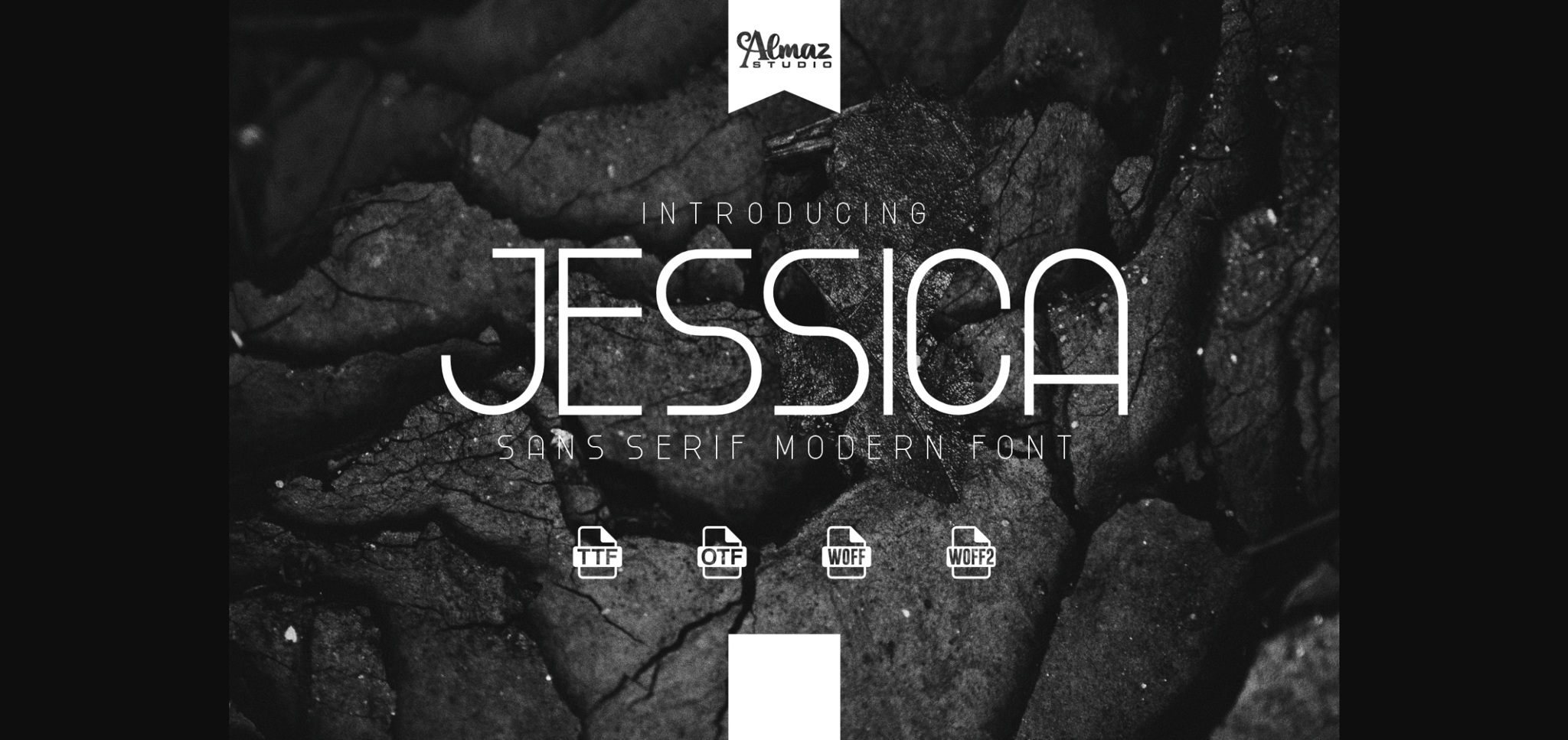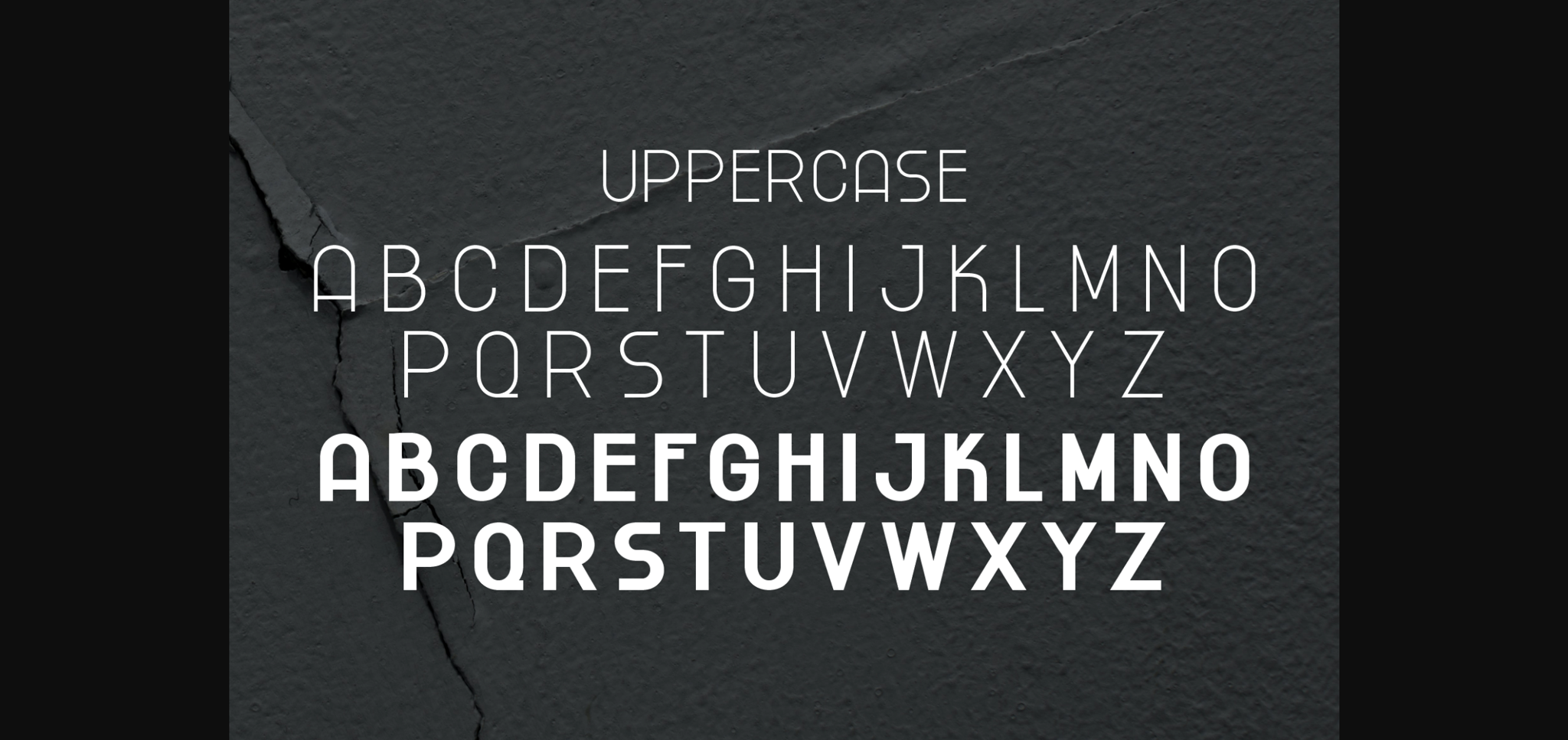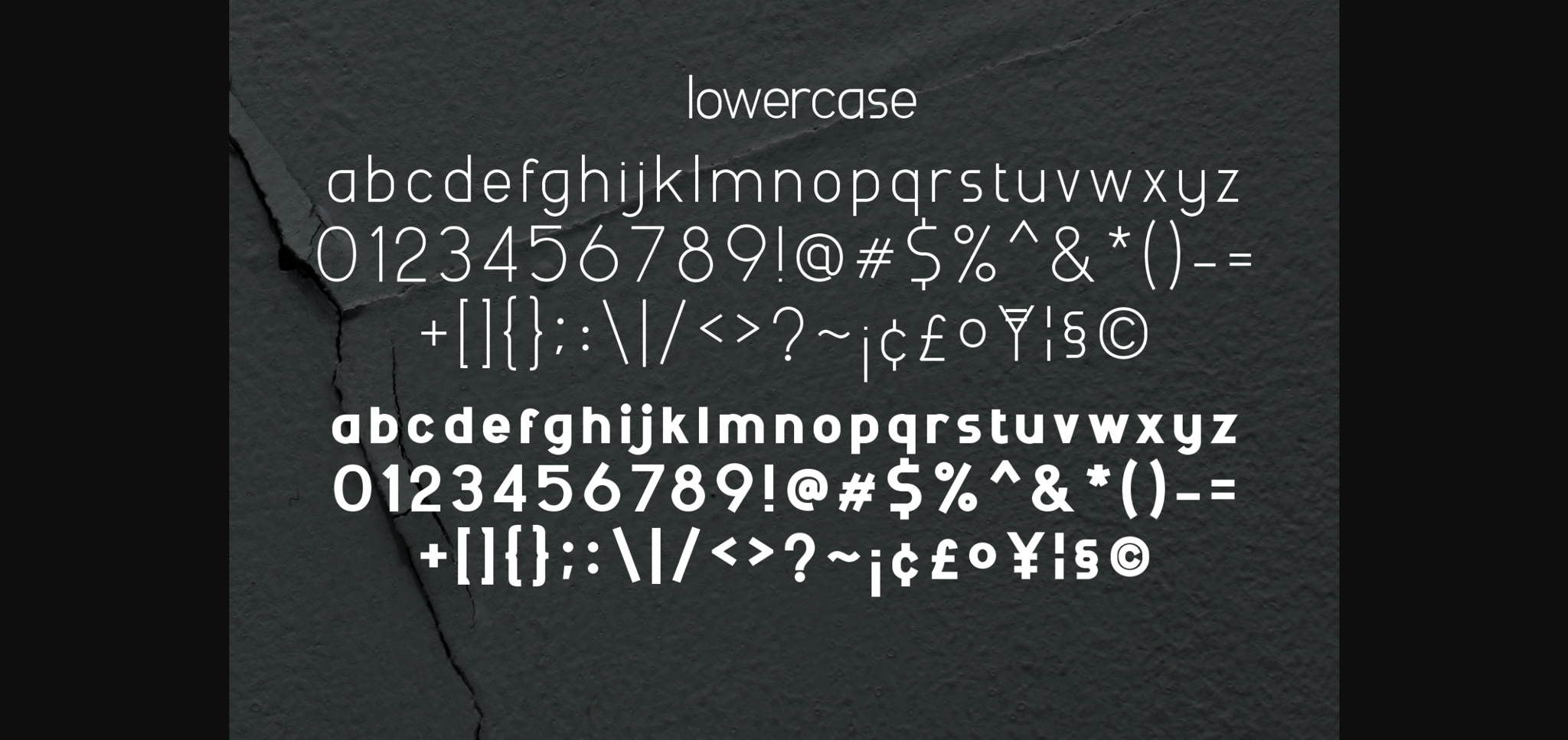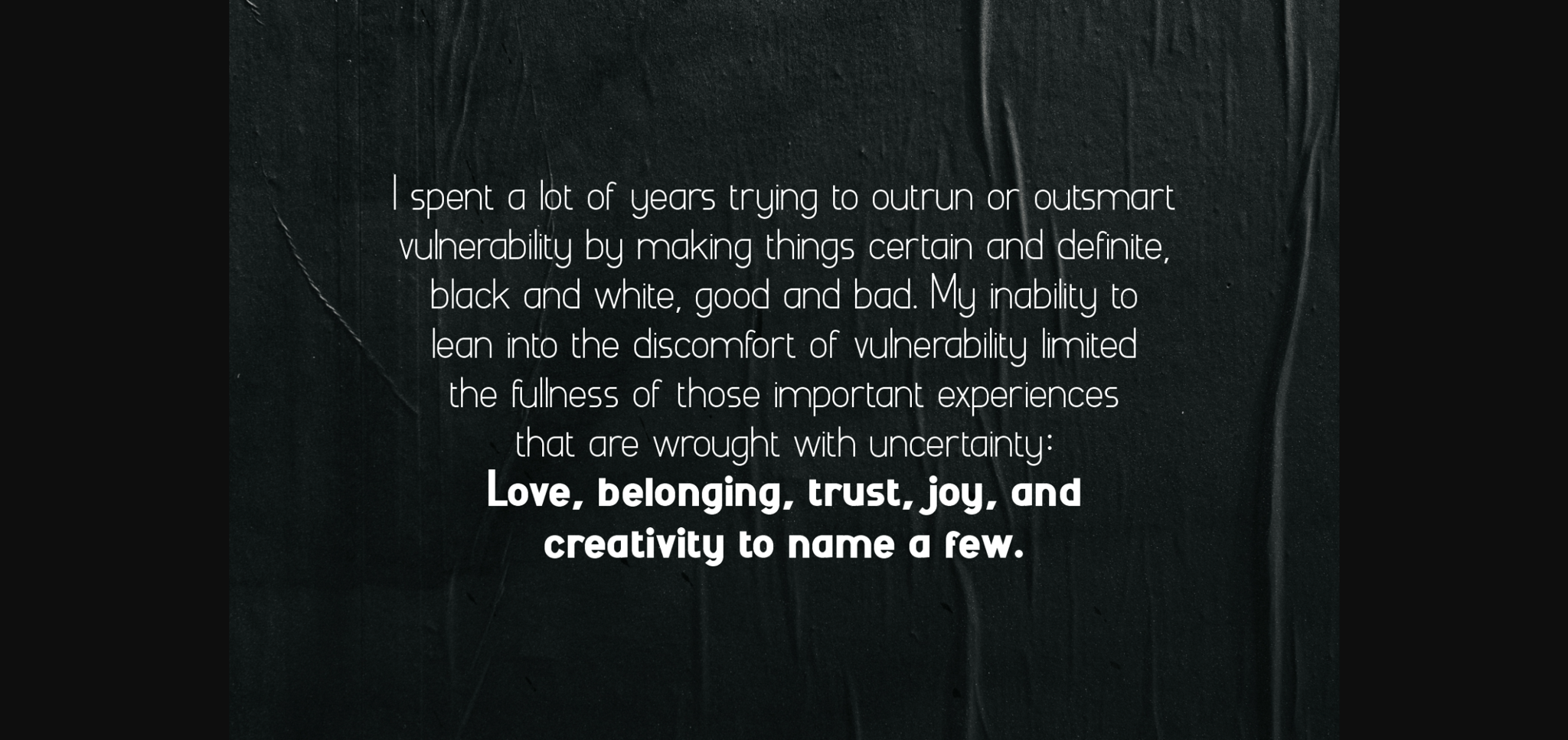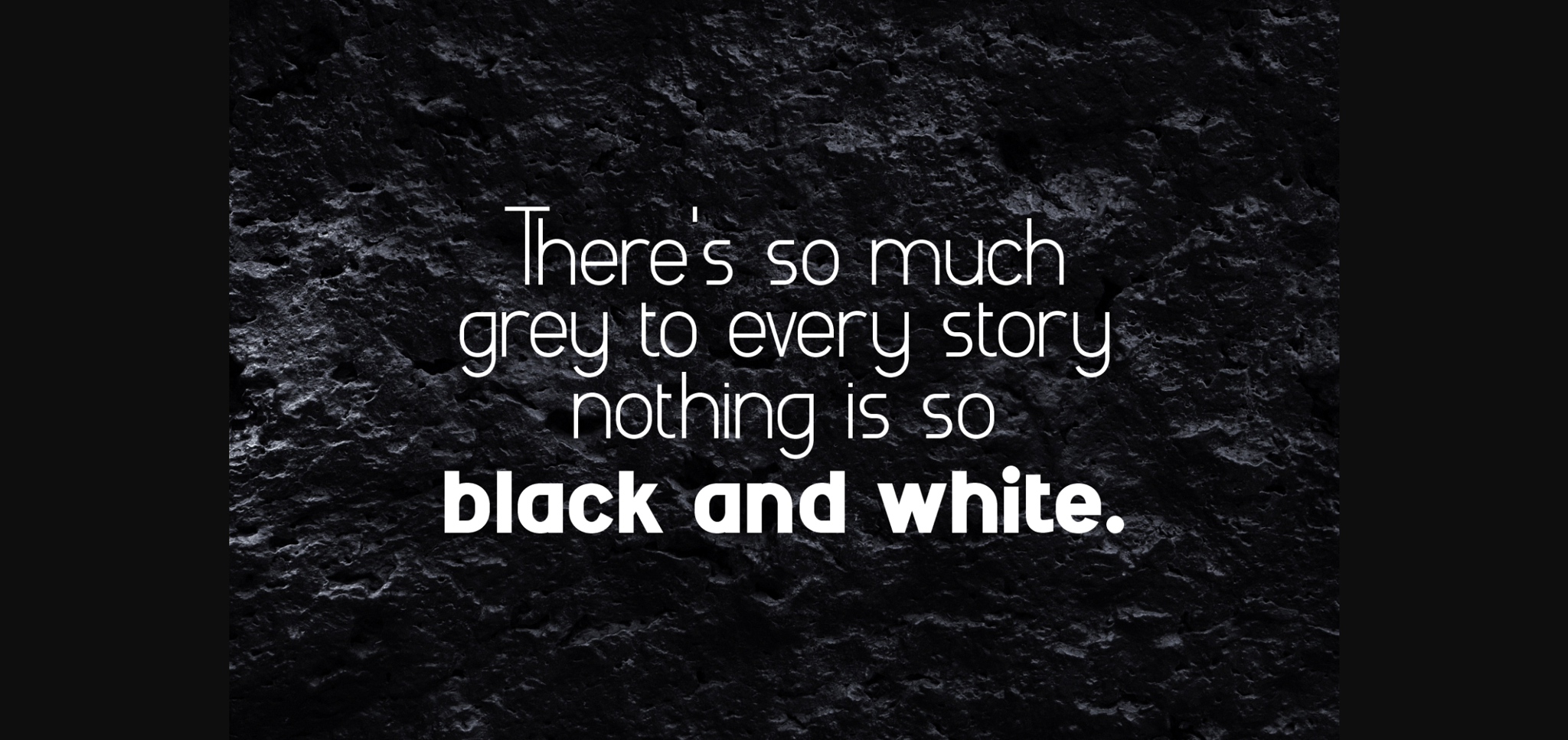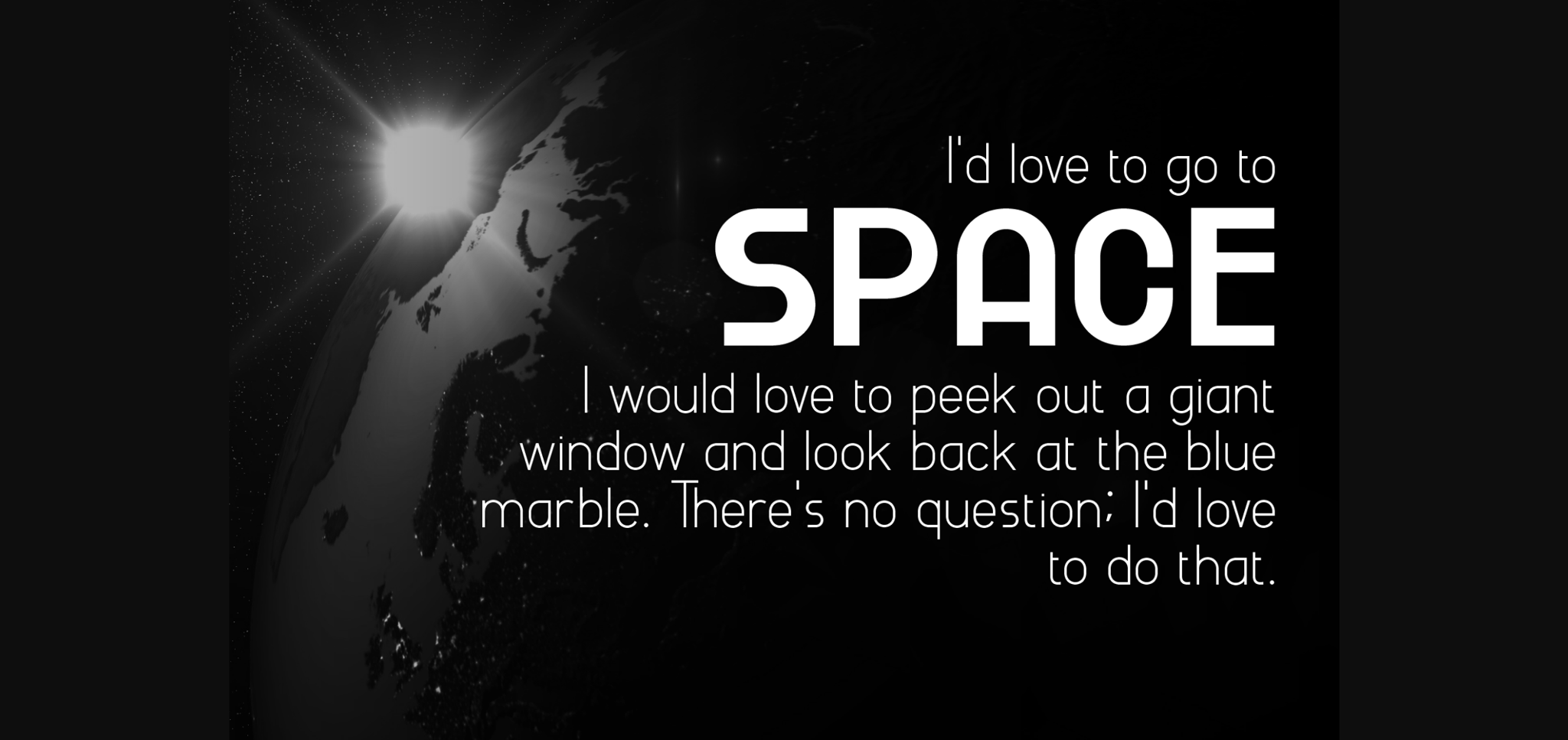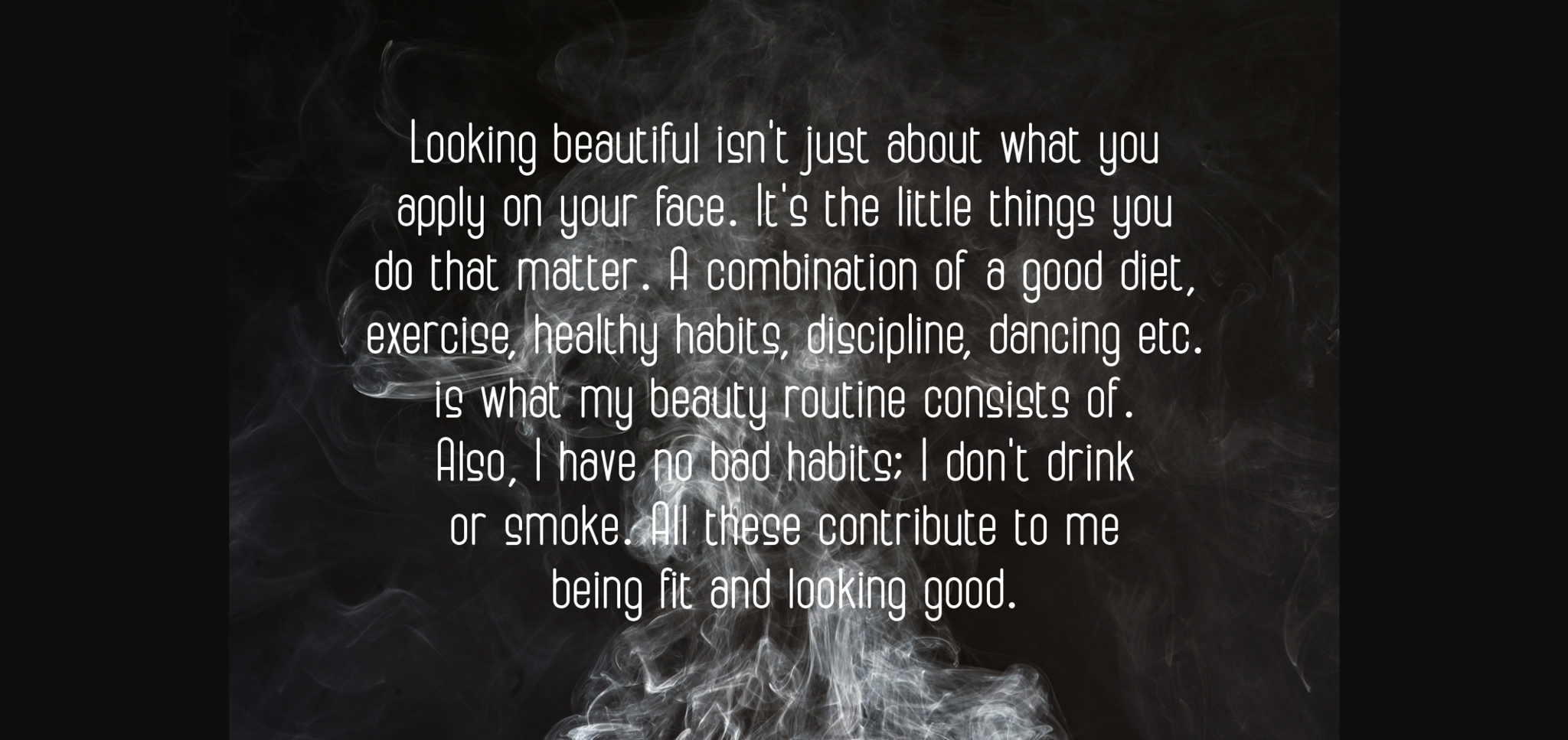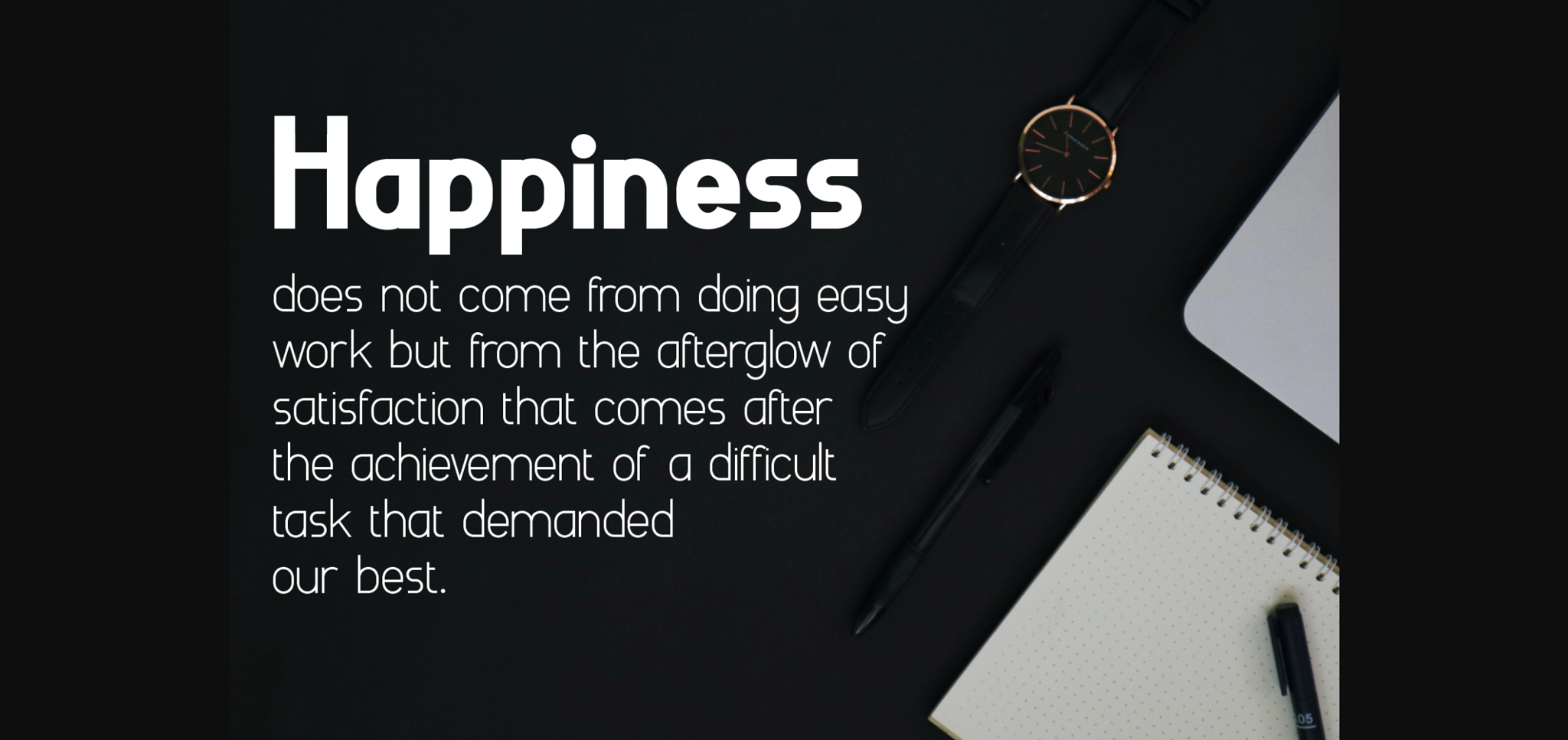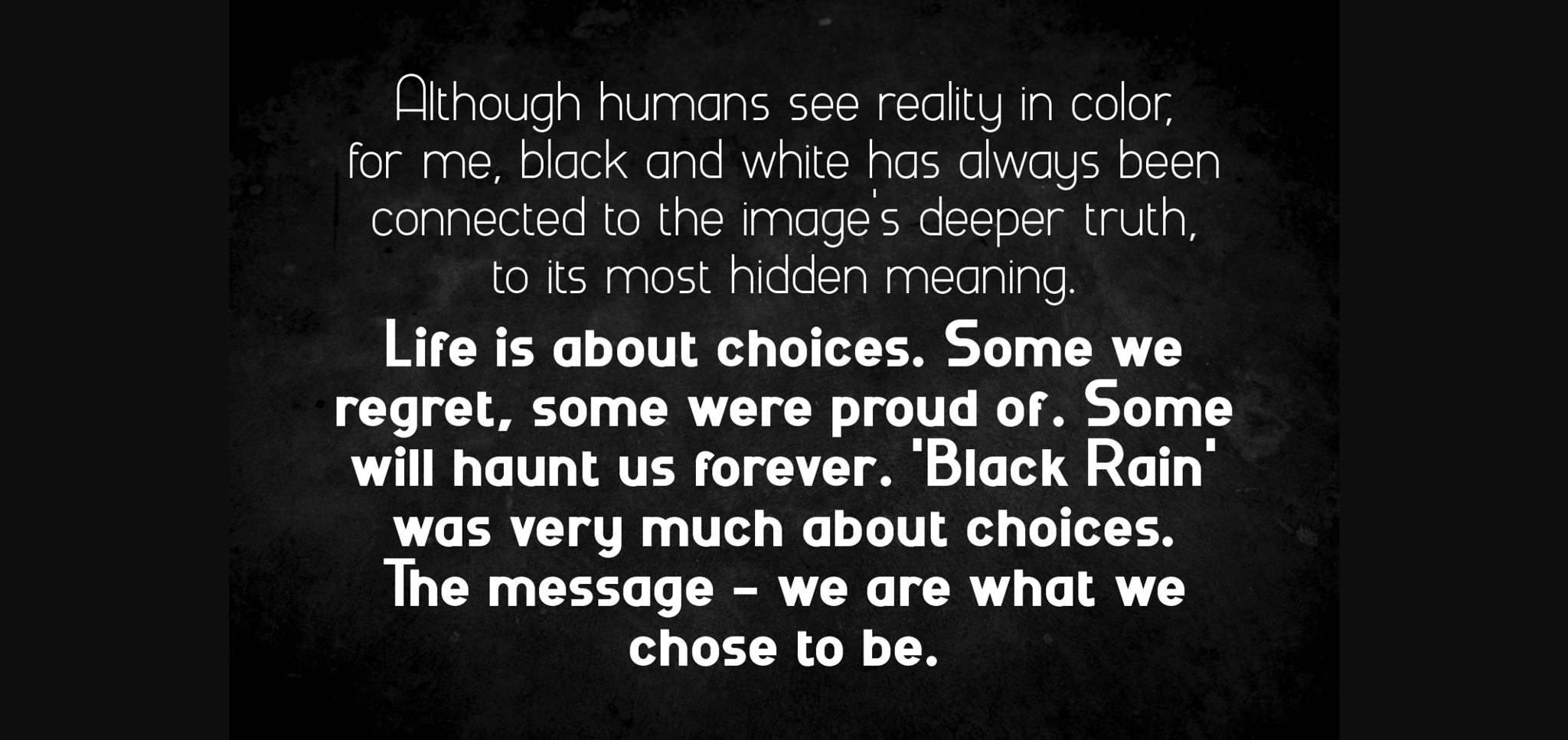
HomeSans Serif FontsJessica Font Sans Serif Fonts Jessica Font FacebookXPinterestWhatsApp 1 of 11 ... Jessica Font Poster 2... Jessica Font Poster 3... Jessica Font Poster 4... Jessica Font Poster 5... Jessica Font Poster 6... Jessica Font Poster 7... Jessica Font Poster 8... Jessica Font Poster 9... Jessica Font Poster 10... Jessica Font Poster 11... About Jessica Font Jessica is a simple and narrow lettered sans serif font. Add it confidently to your projects and you will love the results! DOWNLOAD NOW People also explored Snowith Christmas Font Meditation Coffee Mug Mockup Delight Lettering Font Homeschool Mom Font Signature Font Kabhedo Font Bobo Font Afinity Font Aleanderica Font 281 0 TagsJessicaJessica Font Previous articleLa Taverna FontNext articleEllena Font LEAVE A REPLY Cancel reply Comment: Please enter your comment! Name:* Please enter your name here Email:* You have entered an incorrect email address! Please enter your email address here Website: Save my name, email, and website in this browser for the next time I comment. Personal Use Free Waturaden Personal Use Free Read more about this font Mowgli Personal Use Free Read more about this font Lion Teen Personal Use Free Read more about this font Edo SZ Personal Use Free Read more about this font BLOG Where to Buy American Fonts Online in 2024 Where to Buy American Fonts Online: The Ultimate Guide for 2024 Looking for the perfect American font to elevate your design projects? You're in the... Exploring Font Trends Best Fonts for T-Shirt Design – Top 2025 Picks Free Fonts Risk: Why Free Fonts Can Be Dangerous for Designers